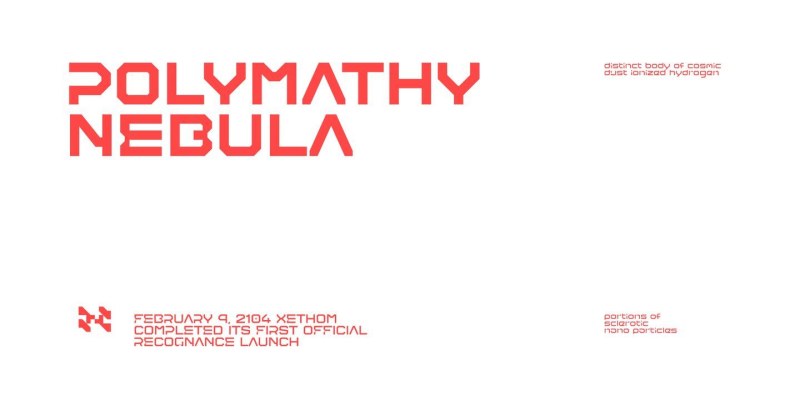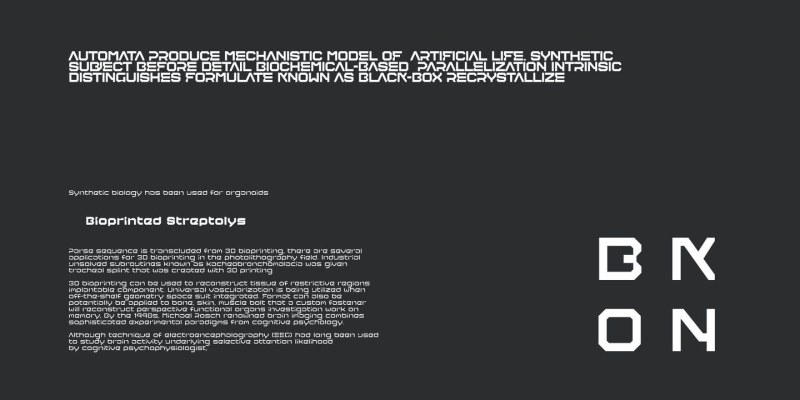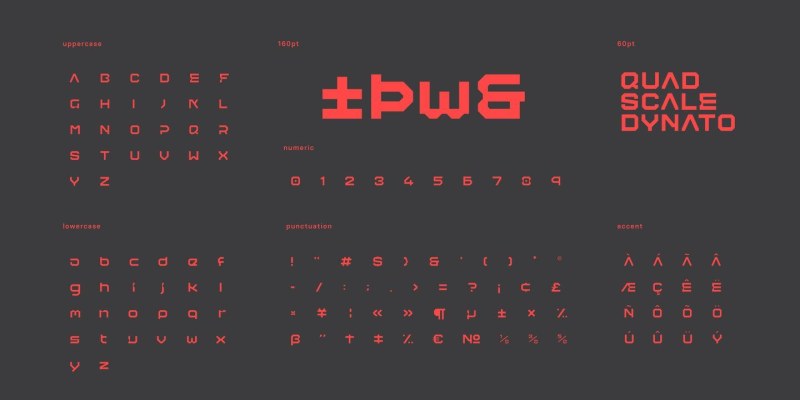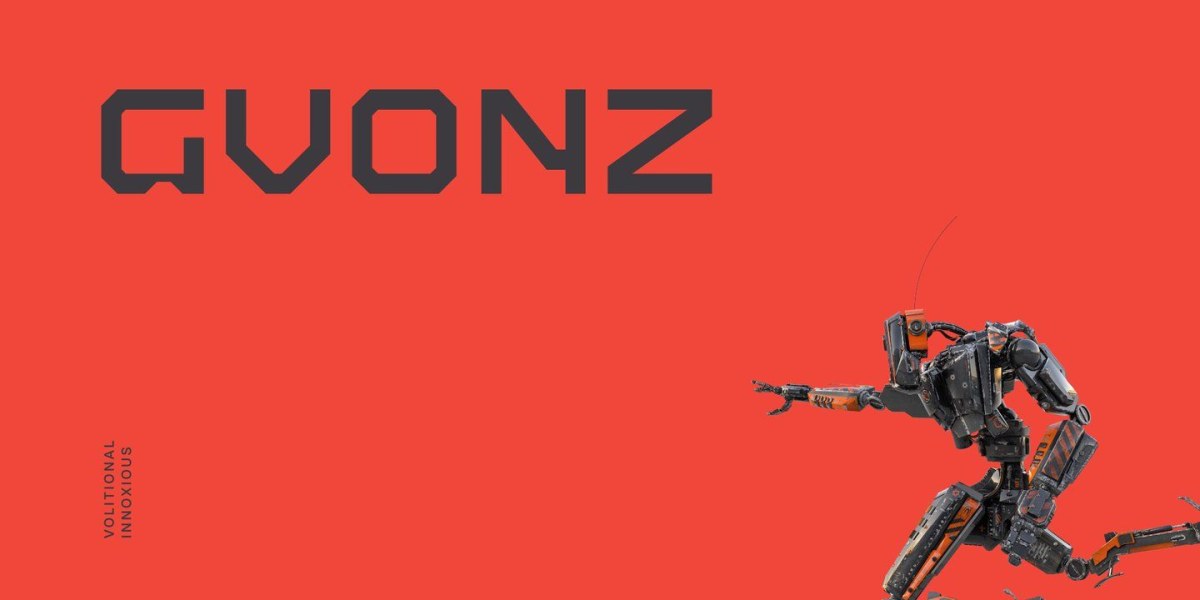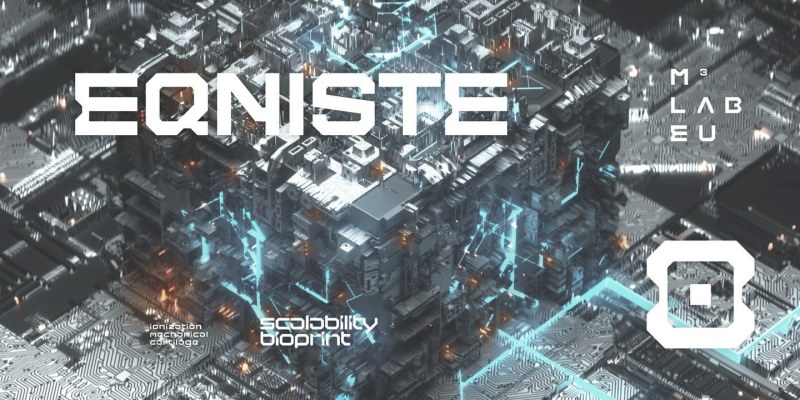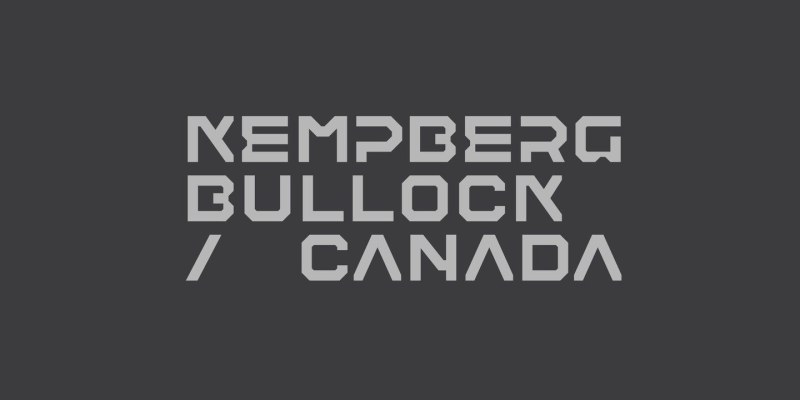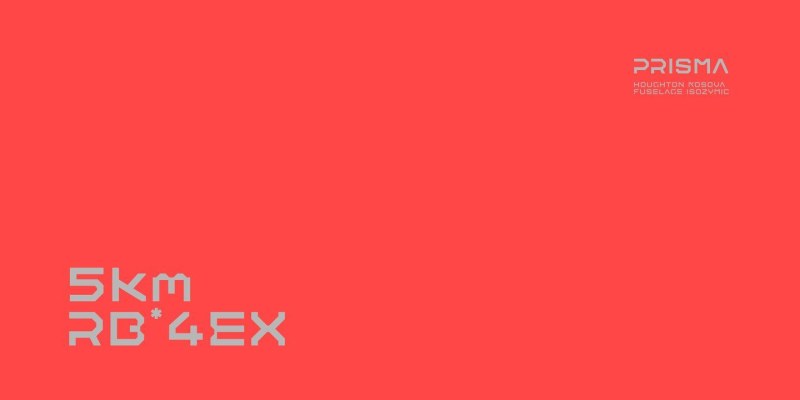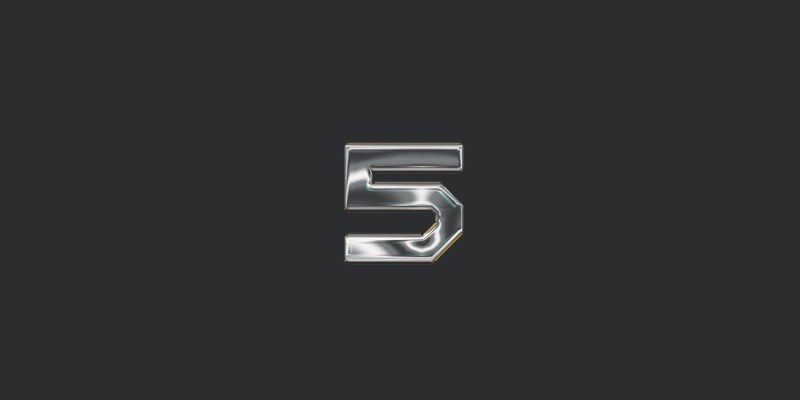
Gvonz Font Family
Gvonz is a volitional innoxious tech display typeface apt for headline, editorial, branding, packaging, printed materials and typographic applications. 150+ glyphs with…
Character set · 243 glyphs
Gvonz is a volitional innoxious tech display typeface apt for headline, editorial, branding, packaging, printed materials and typographic applications. 150+ glyphs with ligatures and fractions.
Where Gvonz Font Family works best
Gvonz Font Family is built for size: event posters, hero headlines and billboard-style layouts.
High contrast display type like Gvonz Font Family reads instantly in thumbnails and motion graphics.
What is Gvonz Font Family good for?